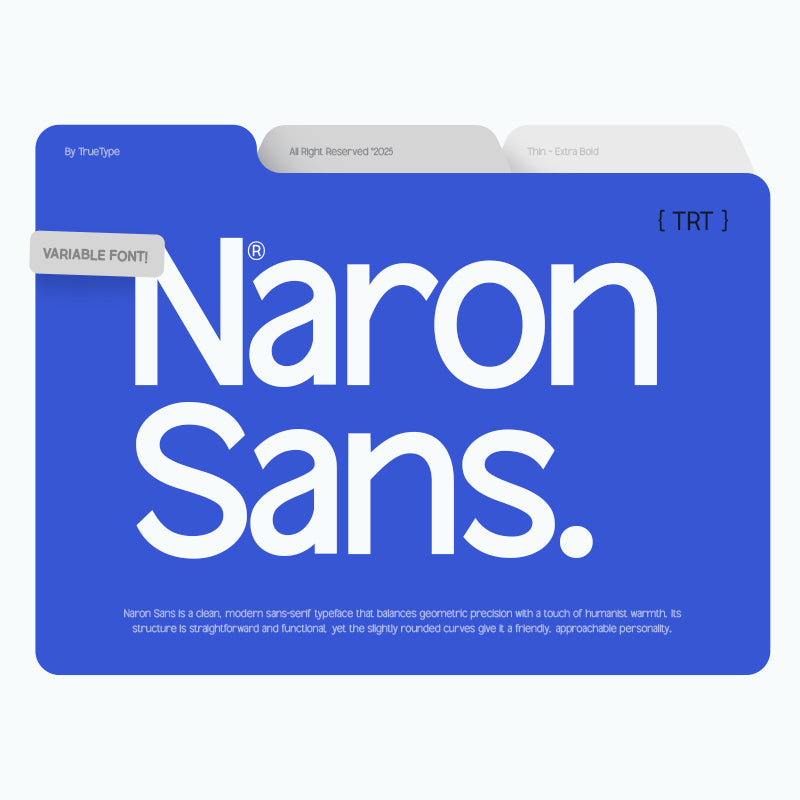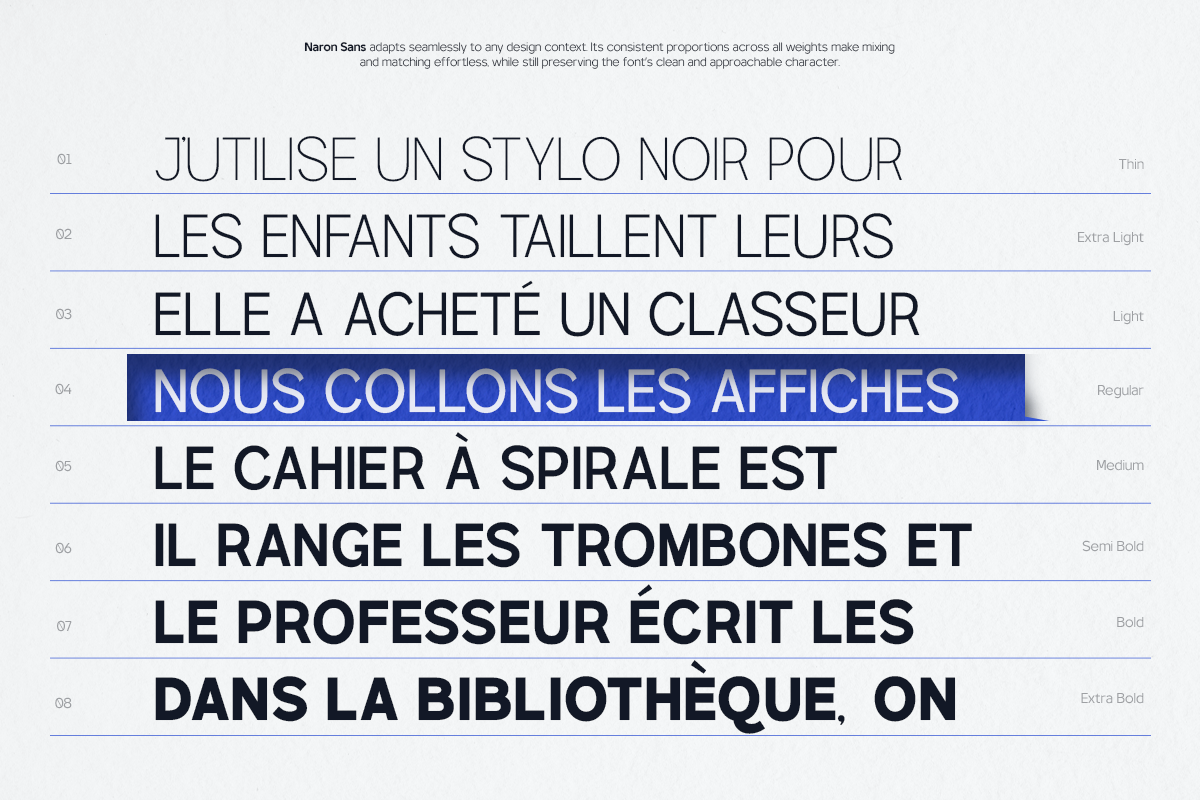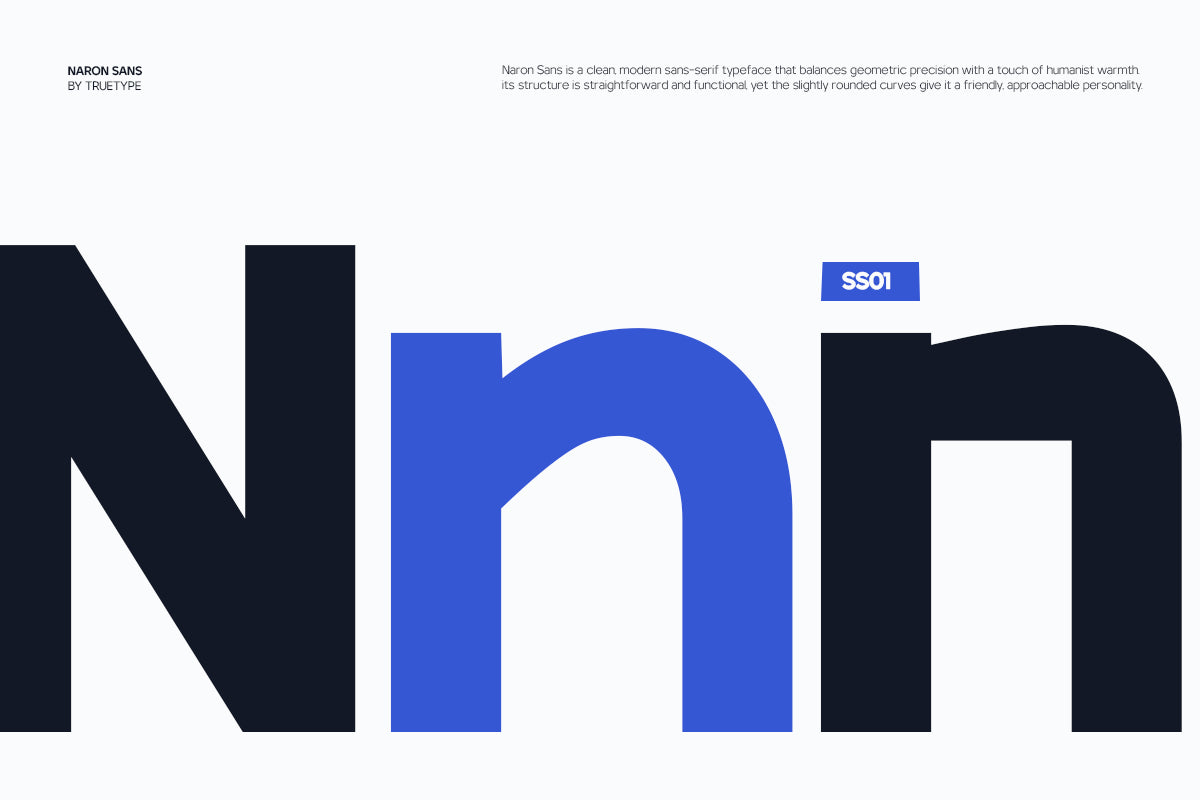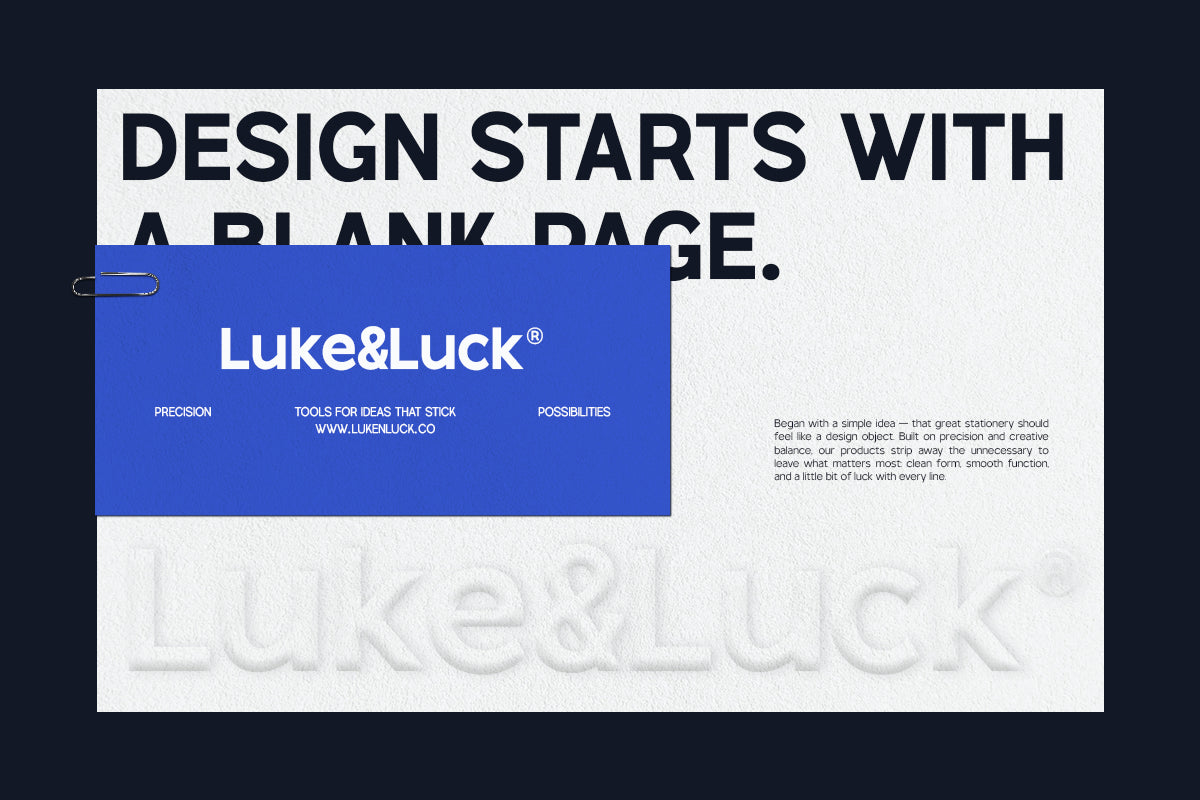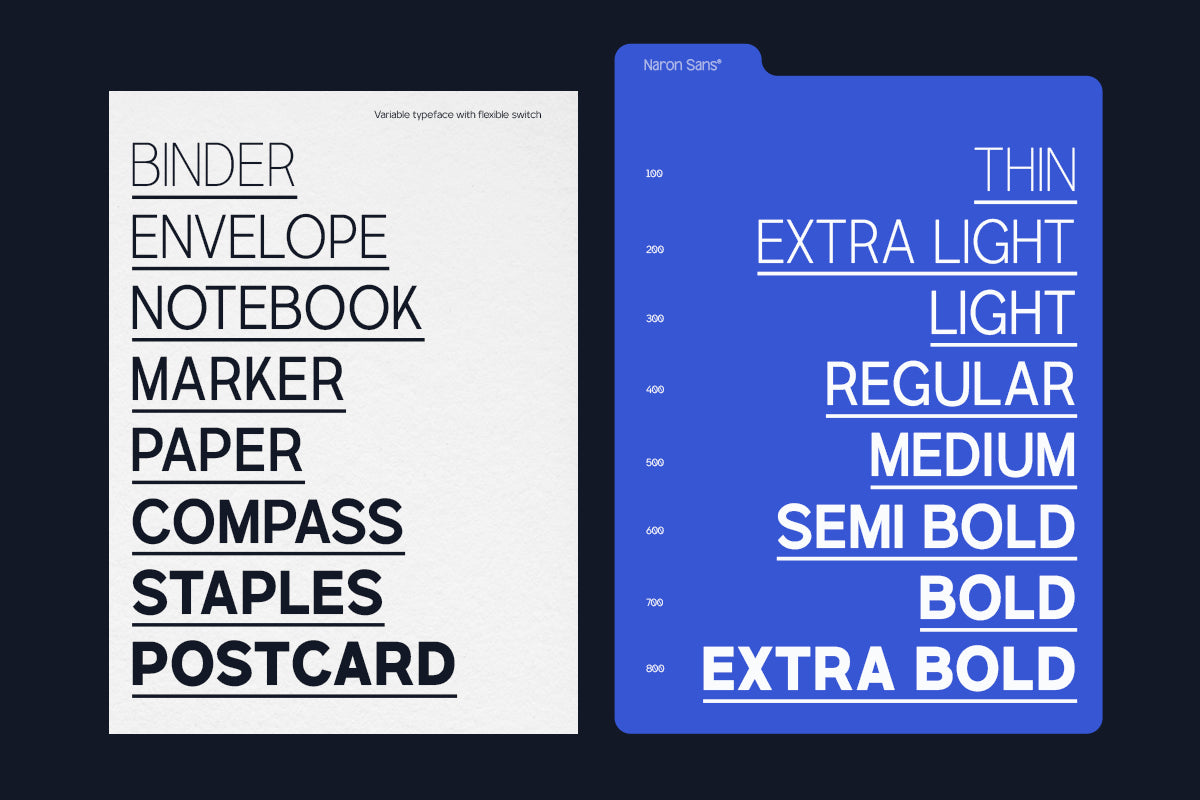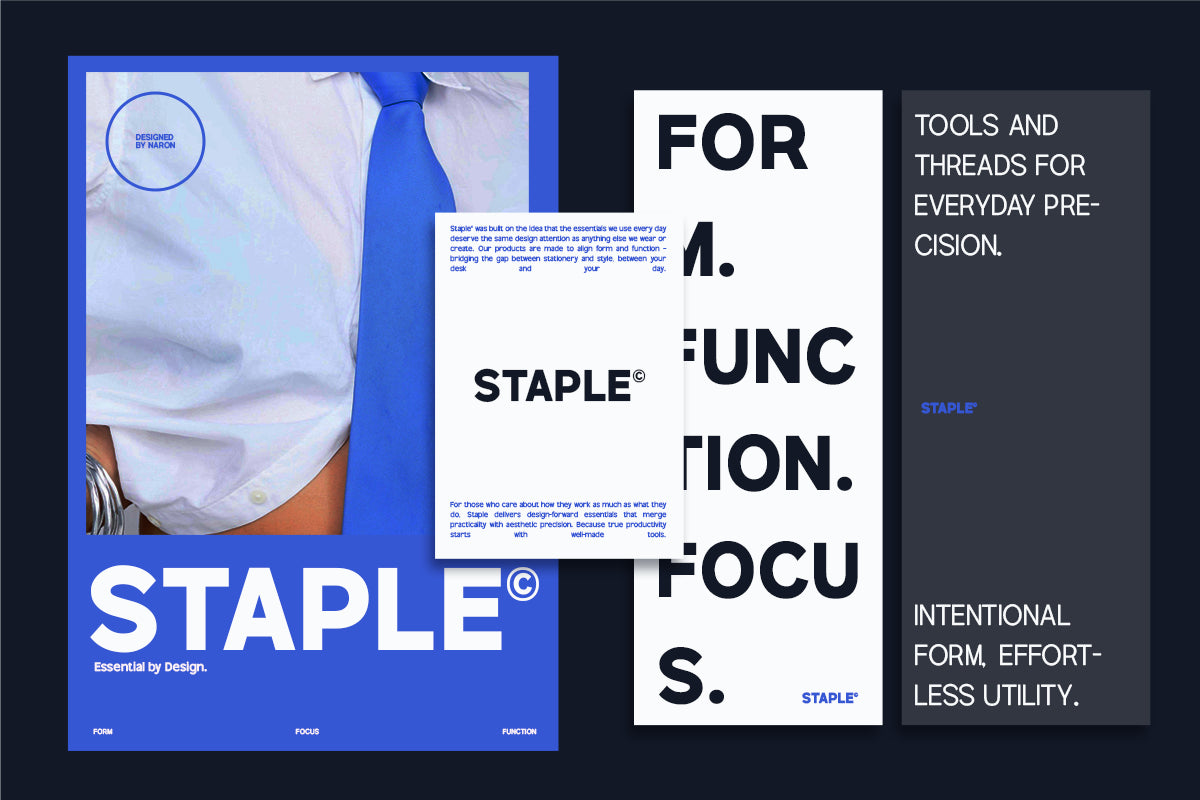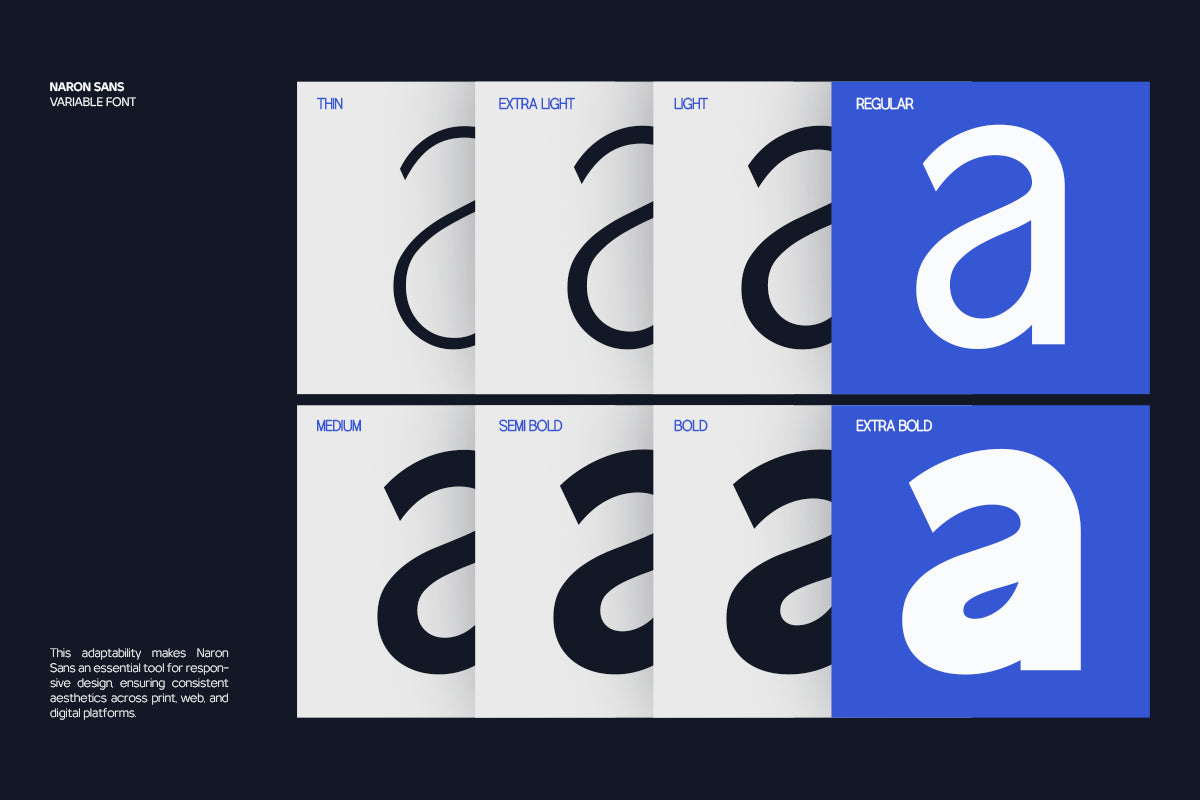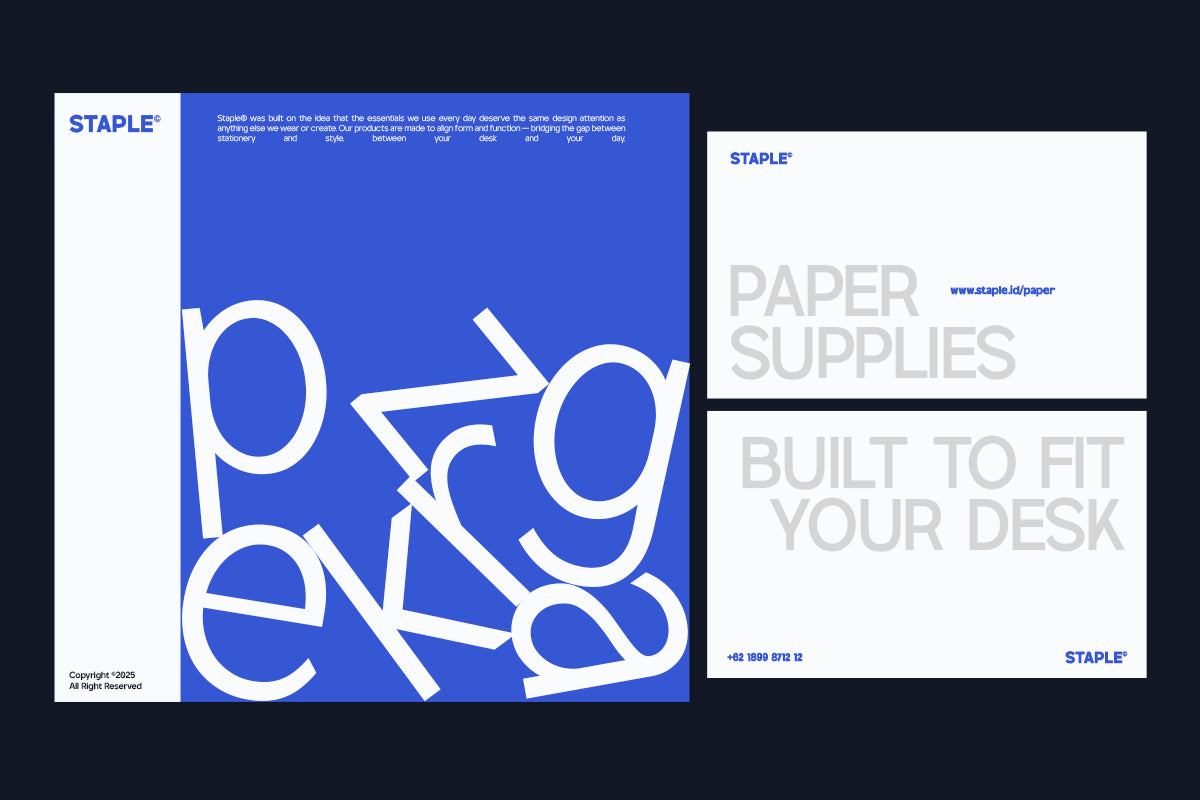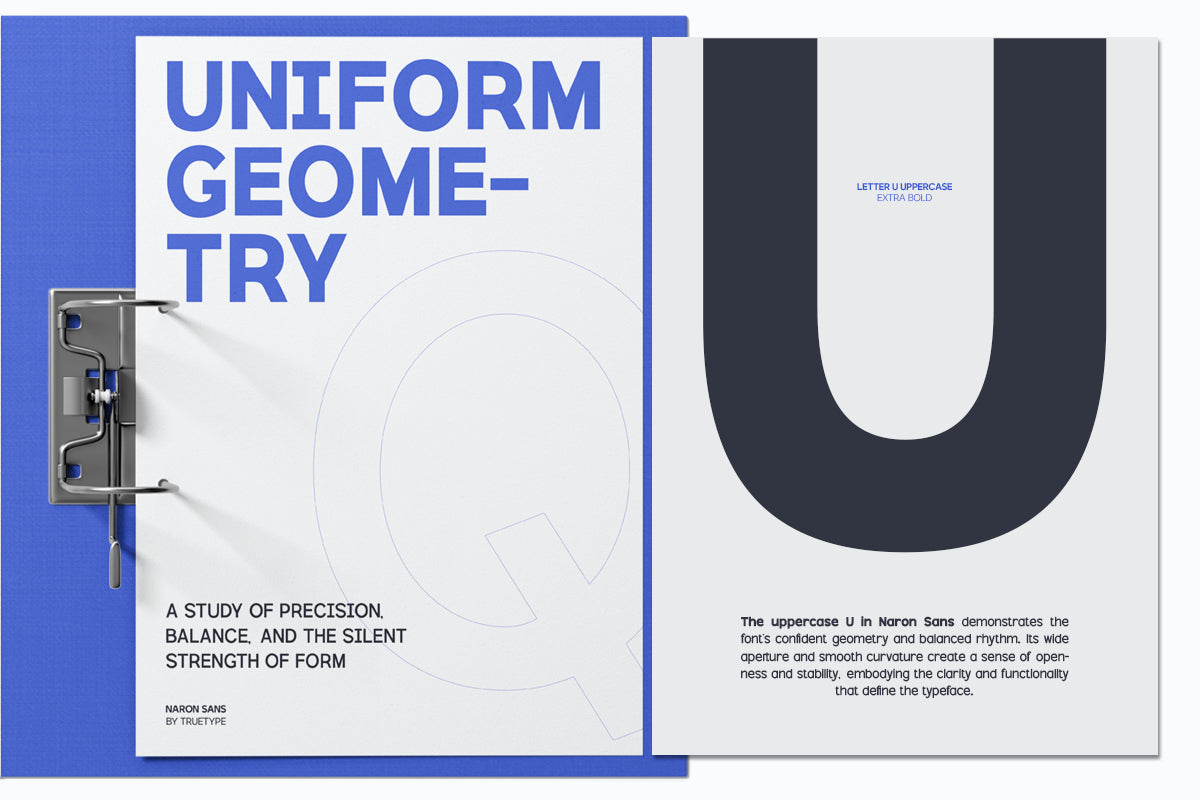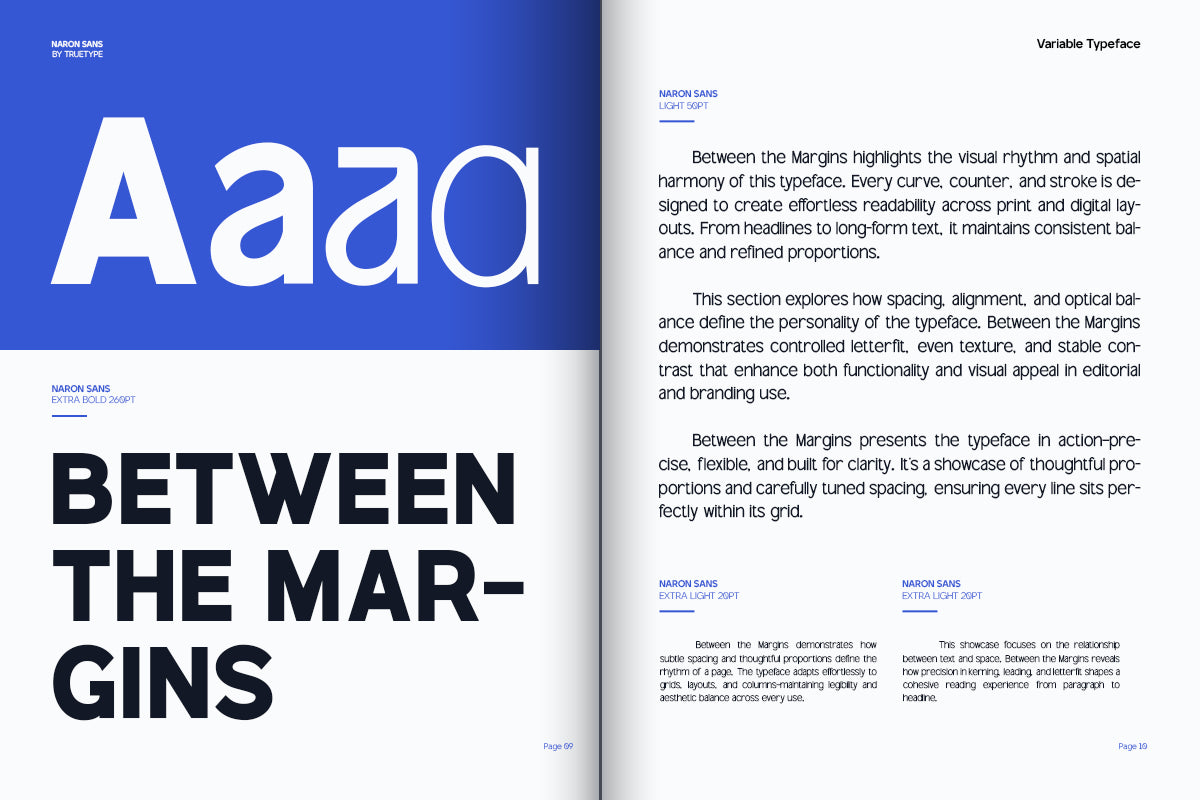
TRT Naron – Semi-Grotesque Sans Font Family
TRT Naron is a bold, modern sans serif typeface that combines clean geometry with subtle humanist touches, offering a balance of clarity and personality. Designed for versatility, it features unique ligatures and refined letterforms, ensuring readability across various sizes and applications.